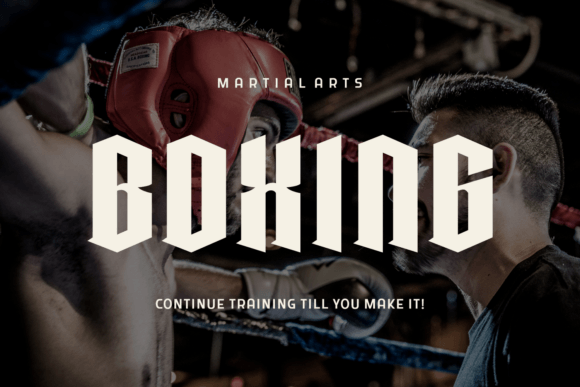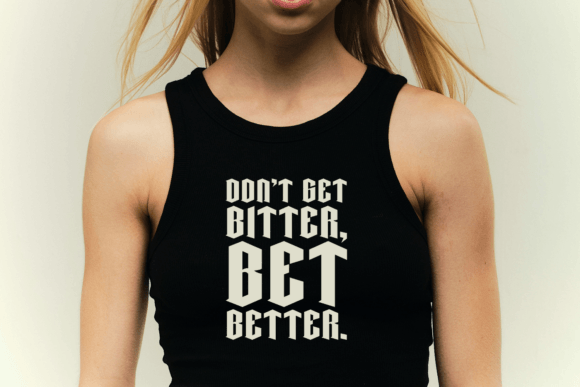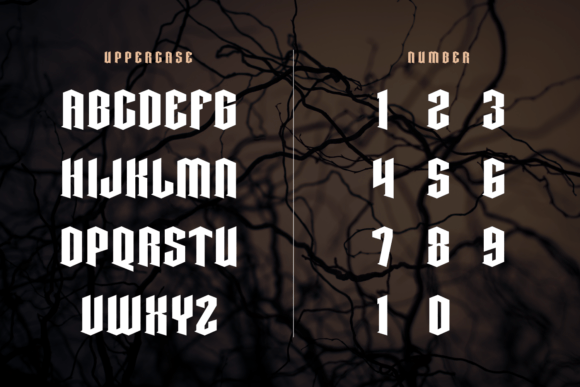
Unleashing the Power of Latou Font
Remember the moment when you stumbled upon the perfect font for your project? The one that elevated your design from good to great? For many designers, that moment is still elusive, but what if we told you that the Latou Font could be the answer to your prayers?
With its striking blackletter style, the Latou Font seamlessly combines traditional gothic elements with modern design sensibilities, making it a valuable resource for any creative project. Whether you’re working on a branding campaign or crafting display text, this high-quality font is sure to bring a classic yet contemporary touch to your design. And the best part? It’s available for free download, making it an accessible design resource for designers of all levels.
Key Features of Latou Font
- High-quality, creative font perfect for various design projects, including digital art and graphic design.
- Features a transparent background, allowing for seamless integration with various design elements and backgrounds.
- Unique, hand-drawn design that adds a touch of personality to any creative project.
Honest Review: Latou Font
I recently had the chance to work with the Latou Font, and I must say it’s been a game-changer for my creative projects. This high-quality font is perfect for any designer looking to add a unique touch to their designs.
What I love about Latou Font is its versatility. It’s available for free download, making it a great resource for designers who are on a budget. The font is also incredibly easy to use, with a transparent background that makes it easy to layer and manipulate in your design software.
Here are some of the key features that make Latou Font stand out:
- ✨ Unique and creative design that adds a touch of personality to any project
- ✨ High-quality vector graphics that ensure crisp and clear typography
- ✨ Transparent background that makes it easy to layer and manipulate
One thing to keep in mind is that Latou Font may not be the best choice for projects that require a more traditional or formal font. In some cases, the unique design may not be suitable for corporate or business branding.
Overall, I’m thoroughly impressed with Latou Font and would highly recommend it to any designer looking to add some creativity to their projects. With its high-quality design, transparent background, and free download option, it’s a design resource that’s hard to beat.
Latou Font is a versatile design resource that can be used in a variety of creative projects. Some common use cases include:
- Blogging and content creation
- Graphic design and branding